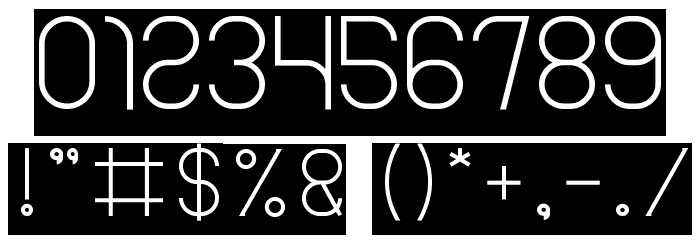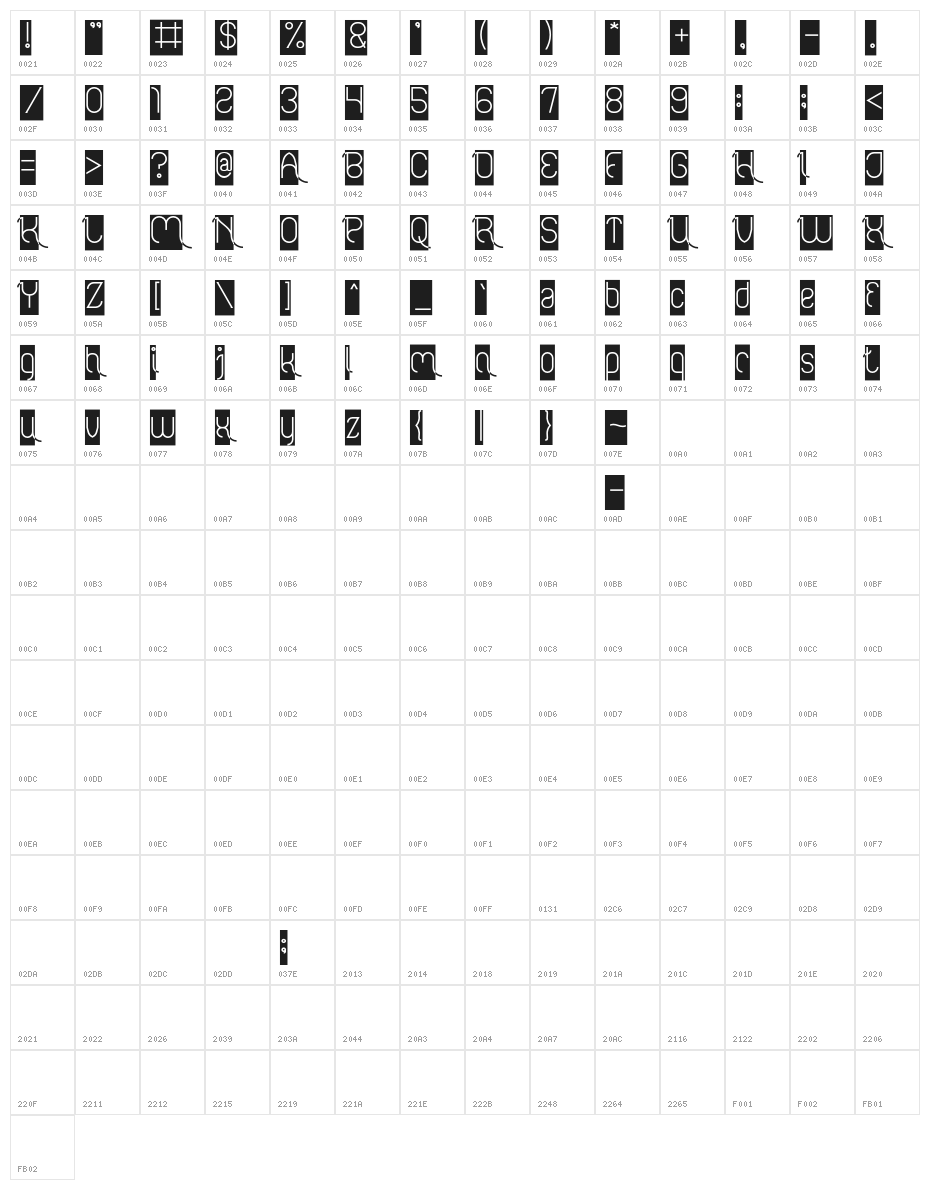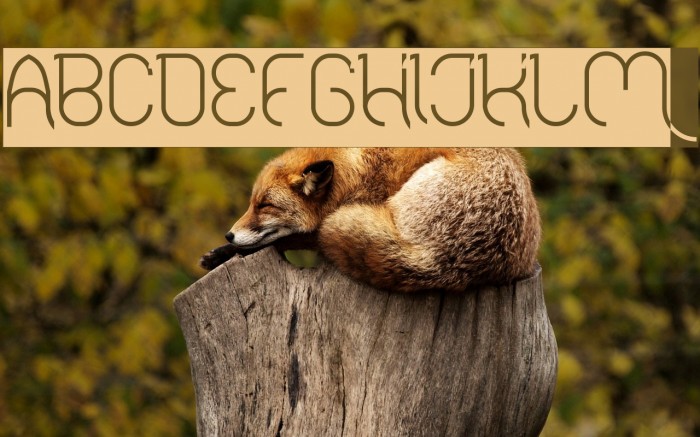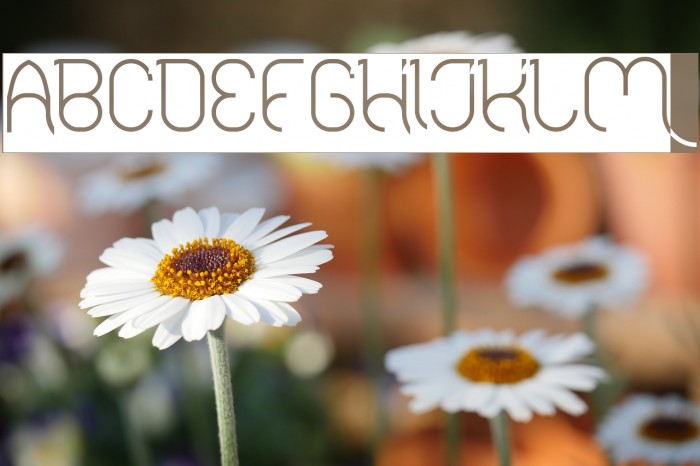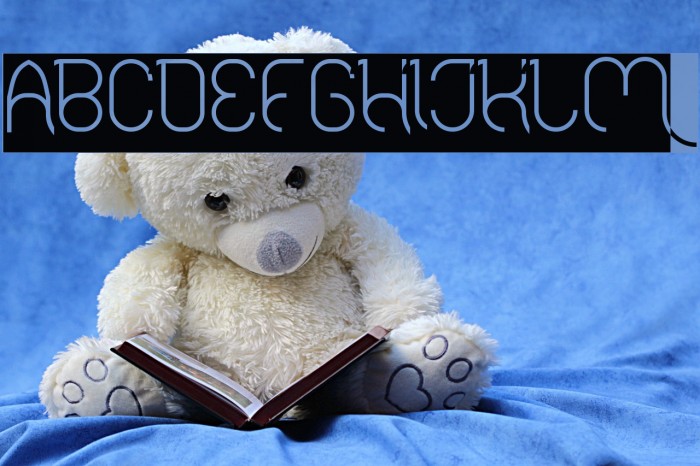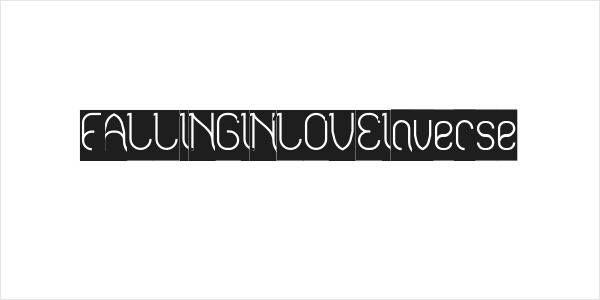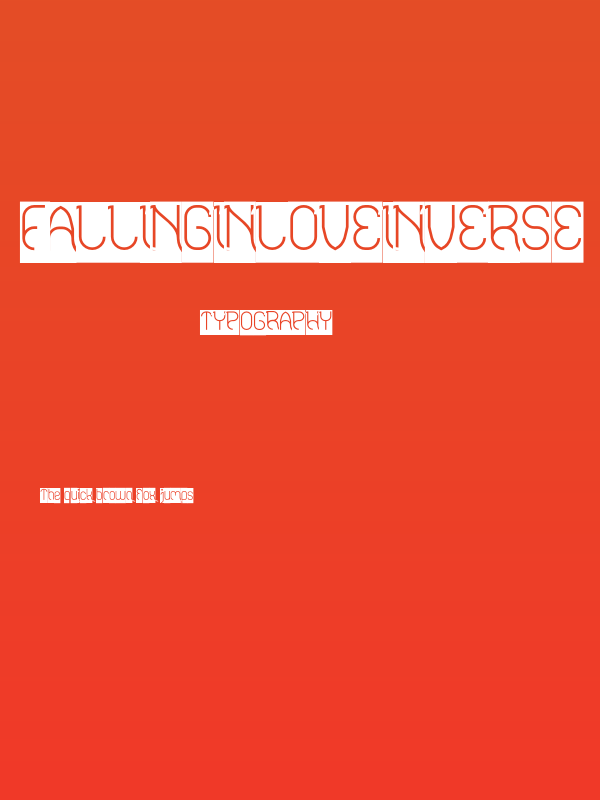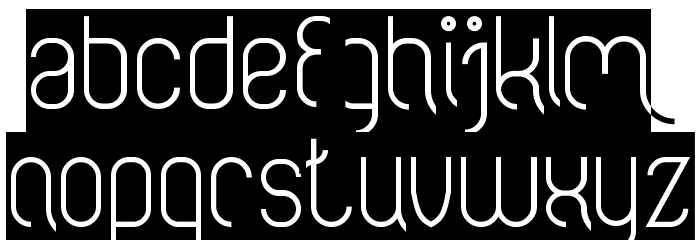
FALLINGINLOVEInverse Font
FALLINGINLOVEInverse Description
This font features a unique and artistic design with elongated and curved strokes that give it a whimsical and modern appearance. The uppercase and lowercase letters maintain a consistent style, characterized by their thin lines and elegant curves. The numerals and special characters complement the alphabet with similar stylistic elements, ensuring a cohesive look across all text. The font's distinctiveness lies in its creative use of negative space and its playful yet sophisticated aesthetic, making it stand out in any design project.
| Proposed Projects | Ideal for creative projects such as branding, invitations, posters, and artistic displays where a unique and modern touch is desired. |